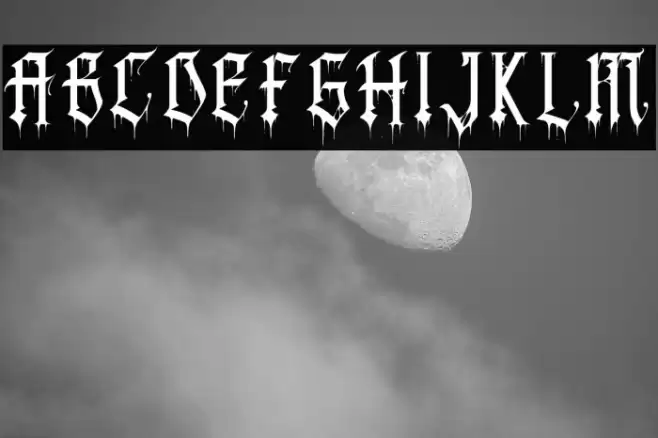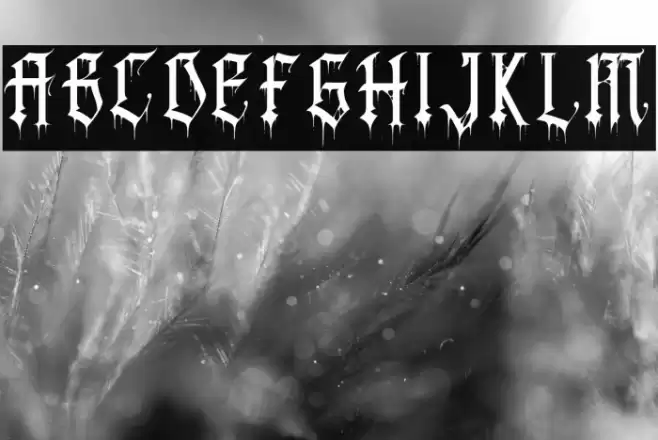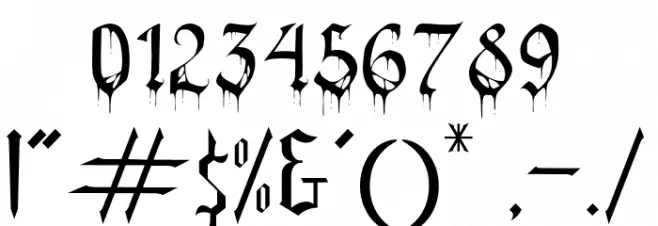
BlackBlood Font
BlackBlood Description
This font features a dramatic and gothic style, characterized by sharp, angular lines and a dripping effect that gives it a haunting appearance. The uppercase and lowercase letters maintain a consistent design, with each character appearing as if it is melting or bleeding, adding to its eerie aesthetic. The numerals and special characters follow this theme, ensuring a cohesive look across all elements. This font is ideal for projects that require a bold, eye-catching design with a dark or horror-themed twist.
A gothic, dripping font with sharp, angular lines for a haunting effect from Uncategorized fonts.
- Proposed Projects: Perfect for Halloween-themed designs, horror movie posters, gothic event invitations, and edgy branding projects.